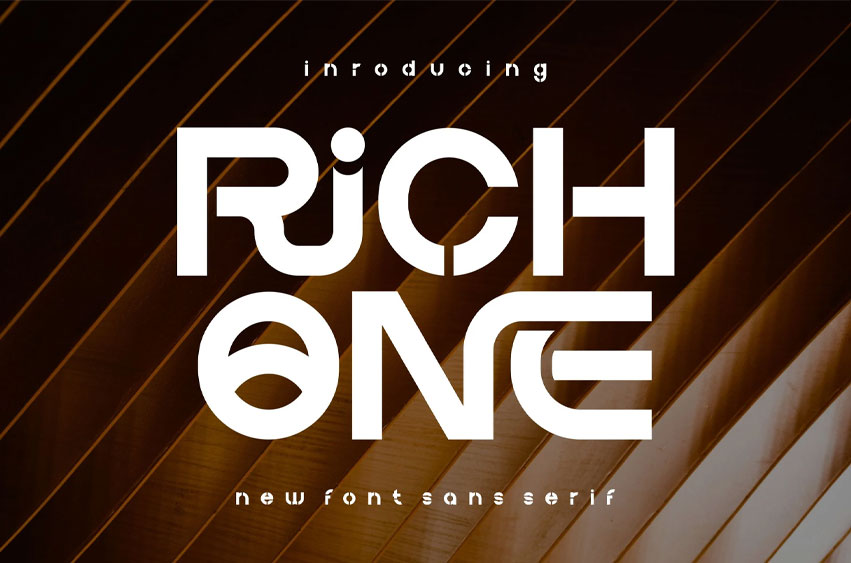
Richone Font
Richone Font Sans Typeface Logo & Font Logo and authentic display. It is suitable for flyers, posters, novels, letterheads, or any design requirements you want to be awesome.